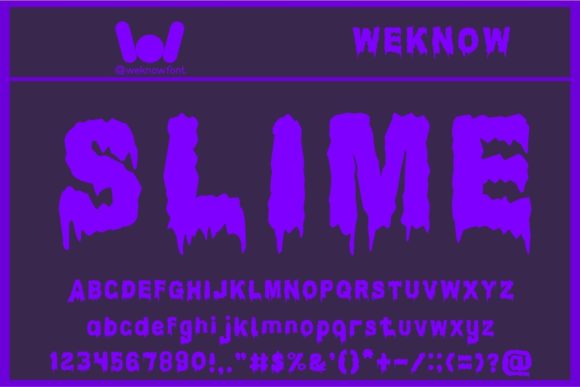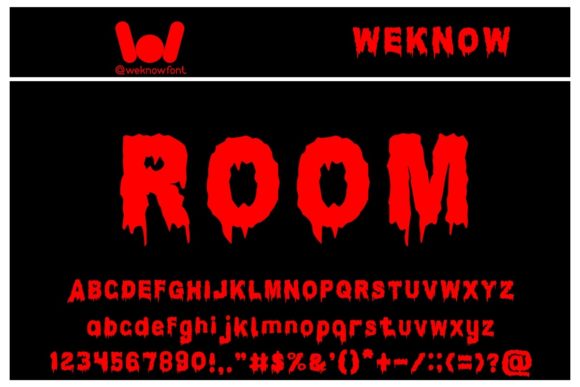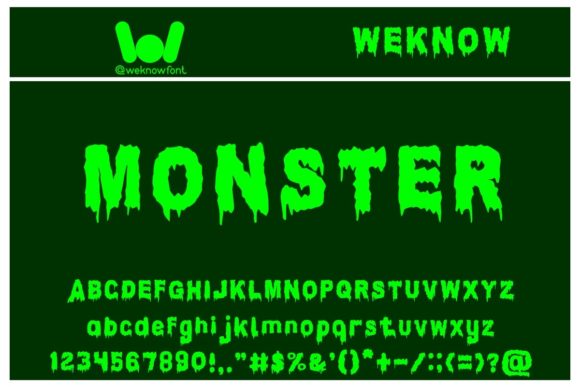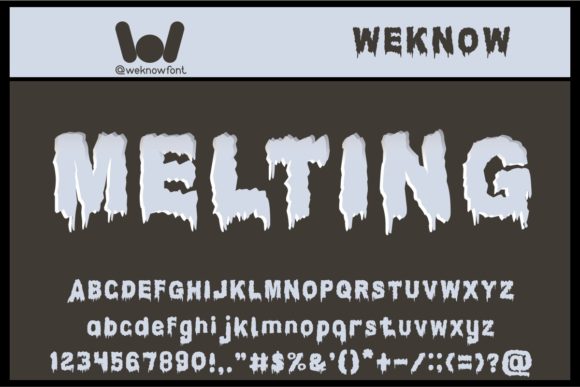
Candle Light Font: Elevate Your Designs with a Bold and Thick Lettered Display Font
Are you a designer or crafter looking for a font that can add a touch of elegance and sophistication to your creations? Look no further than the Candle Light Font. This bold and thick lettered display font is an incredibly versatile asset that can elevate any design, regardless of the topic or theme. In this article, we’ll explore the features and benefits of the Candle Light Font, and how it can help take your designs to the next level.
What is Candle Light Font?
Candle Light Font is a display font that is characterized by its bold and thick lettering. The font is designed to make a statement, with sturdy and confident lines that demand attention. The font’s unique design makes it perfect for a wide range of applications, from logos and branding to posters, flyers, and social media graphics.
Key Features of Candle Light Font
- Bold and Thick Lettering: The Candle Light Font features bold and thick lettering that makes it perfect for headlines, titles, and other display text.
- Versatile: The font is incredibly versatile and can be used for a wide range of applications, from formal to informal designs.
- Elegant and Sophisticated: The font’s elegant and sophisticated design makes it perfect for designs that require a touch of luxury and refinement.
- Easy to Read: Despite its bold and thick lettering, the font is easy to read, even at smaller sizes.
Benefits of Using Candle Light Font
There are many benefits to using the Candle Light Font in your designs. Here are just a few:
- Adds Visual Impact: The font’s bold and thick lettering adds visual impact to any design, making it perfect for headlines, titles, and other display text.
- Elevates Your Brand: The font’s elegant and sophisticated design can help elevate your brand and give it a more luxurious feel.
- Increases Legibility: The font’s easy-to-read design makes it perfect for designs that require a clear and concise message.
- Versatile: The font can be used for a wide range of applications, from formal to informal designs.
How to Use Candle Light Font
Using the Candle Light Font is easy. Here are a few tips to get you started:
- Use it for Headlines and Titles: The font is perfect for headlines and titles, where its bold and thick lettering can add visual impact.
- Pair it with Other Fonts: The font can be paired with other fonts to create a unique and visually appealing design.
- Experiment with Colors: The font looks great in a variety of colors, so don’t be afraid to experiment and find the perfect color for your design.
In conclusion, the Candle Light Font is a bold and thick lettered display font that can elevate any design. Its elegant and sophisticated design makes it perfect for designs that require a touch of luxury and refinement. With its versatility, easy-to-read design, and visual impact, the Candle Light Font is an incredibly valuable asset for any designer or crafter. Whether you’re looking to add a touch of elegance to your designs or simply want to make a statement, the Candle Light Font is the perfect choice.